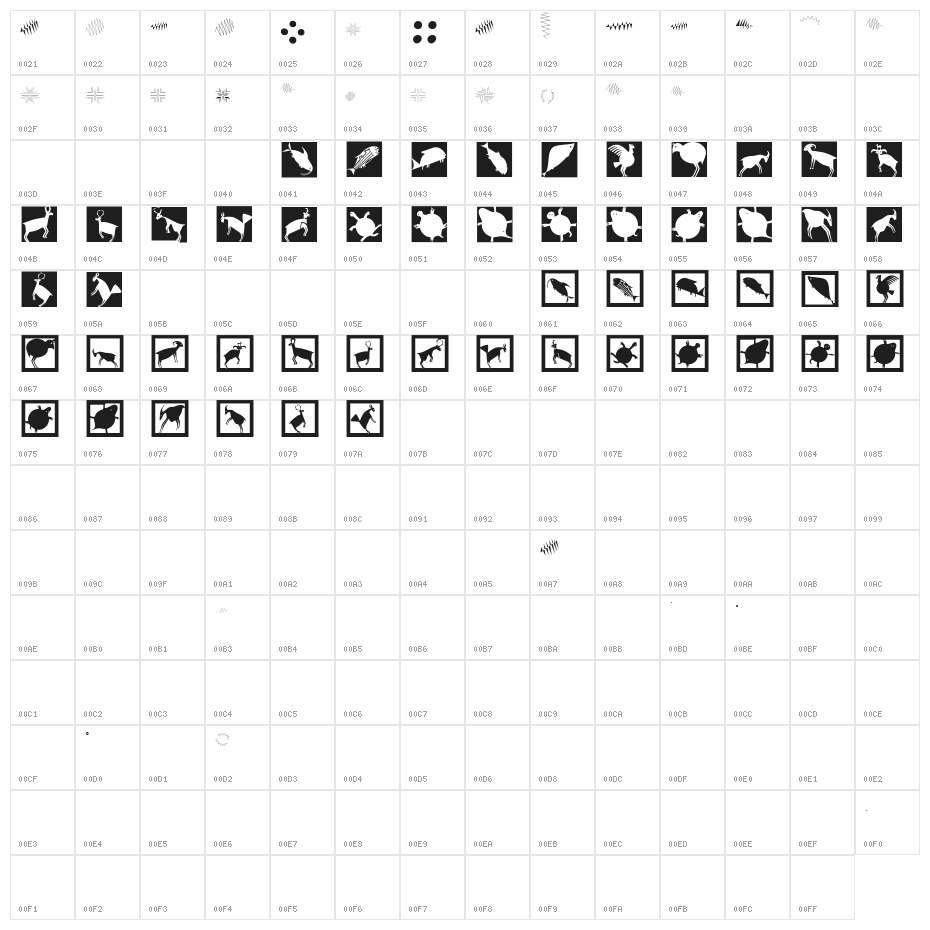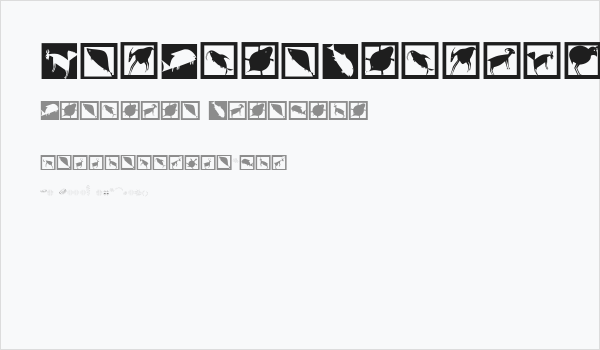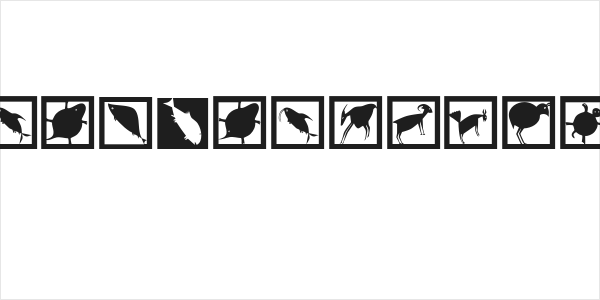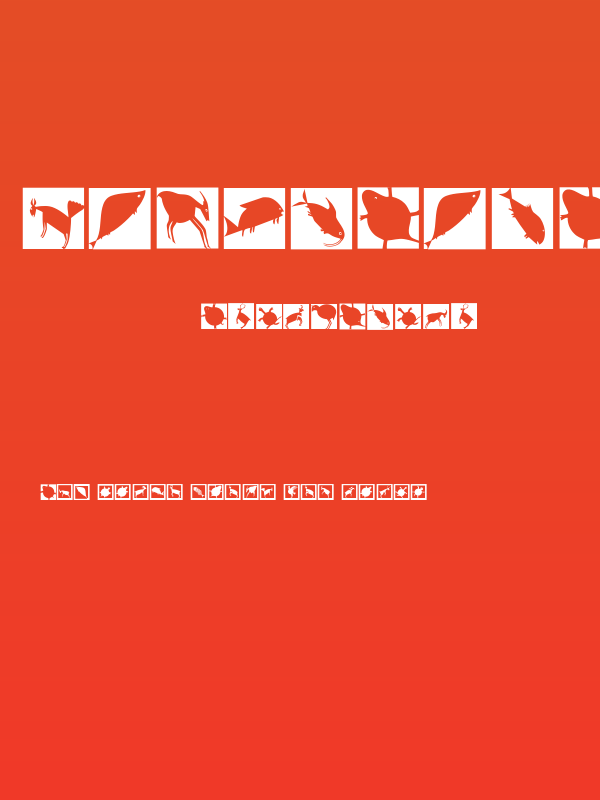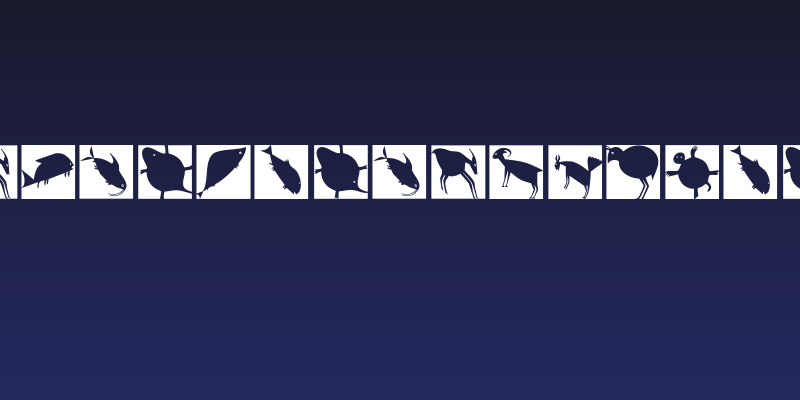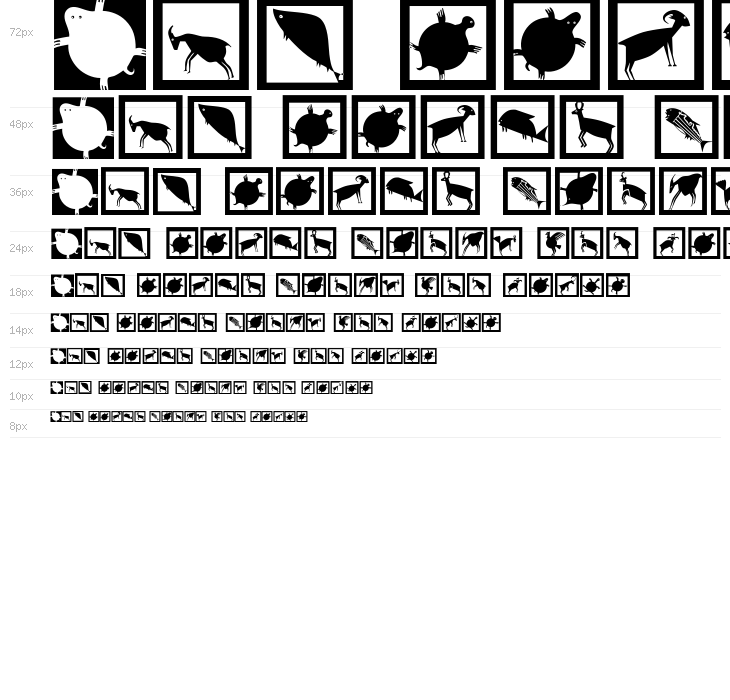
NewCaveDrawingsDrei Font
NewCaveDrawingsDrei Description
This set of symbols is inspired by ancient cave drawings, featuring a variety of animal silhouettes and abstract patterns. Each character is enclosed in a square, providing a uniform and structured appearance. The animals are depicted in a stylized manner, with bold, contrasting shapes that stand out against the background. The abstract symbols add a dynamic and rhythmic element to the collection, resembling tribal or primitive art forms. The overall aesthetic is both historical and artistic, evoking a sense of mystery and ancient storytelling.
| Use Case | Logos, Decorative elements, Educational materials |
| Proposed Projects | Ideal for use in graphic design projects that require a primitive or tribal theme, such as posters, book covers, or educational materials about ancient cultures. |